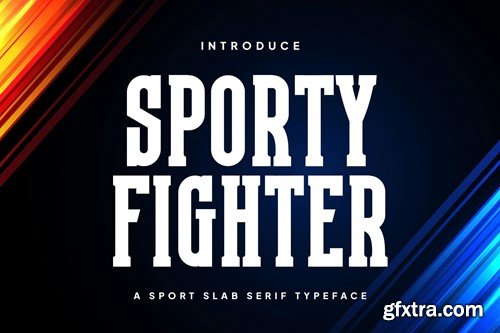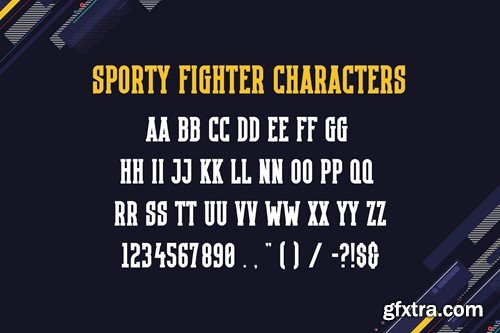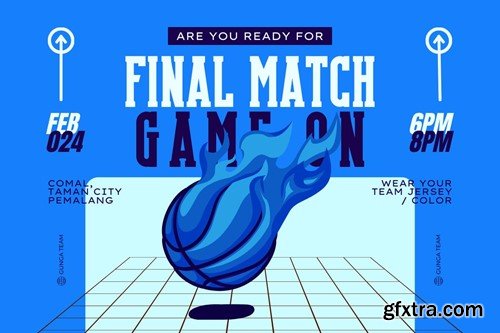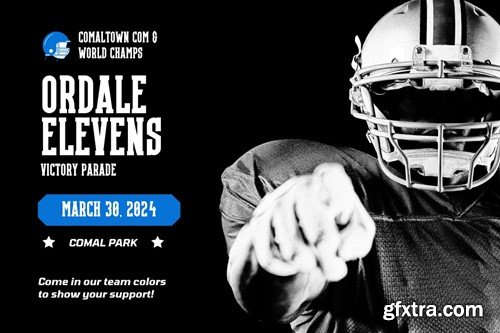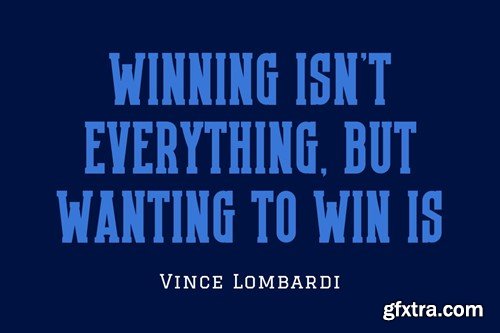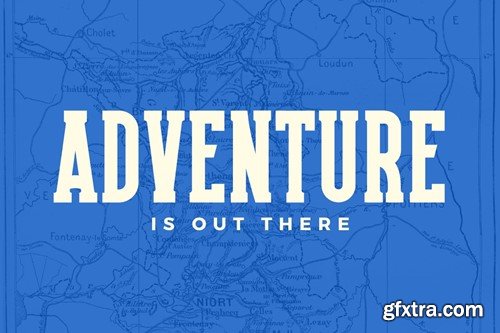
Sporty Fighter - Sport Display Font
Sporty Fighter - Sport Display Font Sporty Fighter is a sporty display font inspired by the fighting spirit and dynamism of athletes. This font is designed to give a strong, bold, and energetic impression to your designs. Sporty Fighter gives an impression of boldness, confidence, and enthusiasm. This font is suitable for use in designs that want to emphasize the sporty and energetic side, such as posters, banners, sports team logos, and merchandise. The zip file is include: